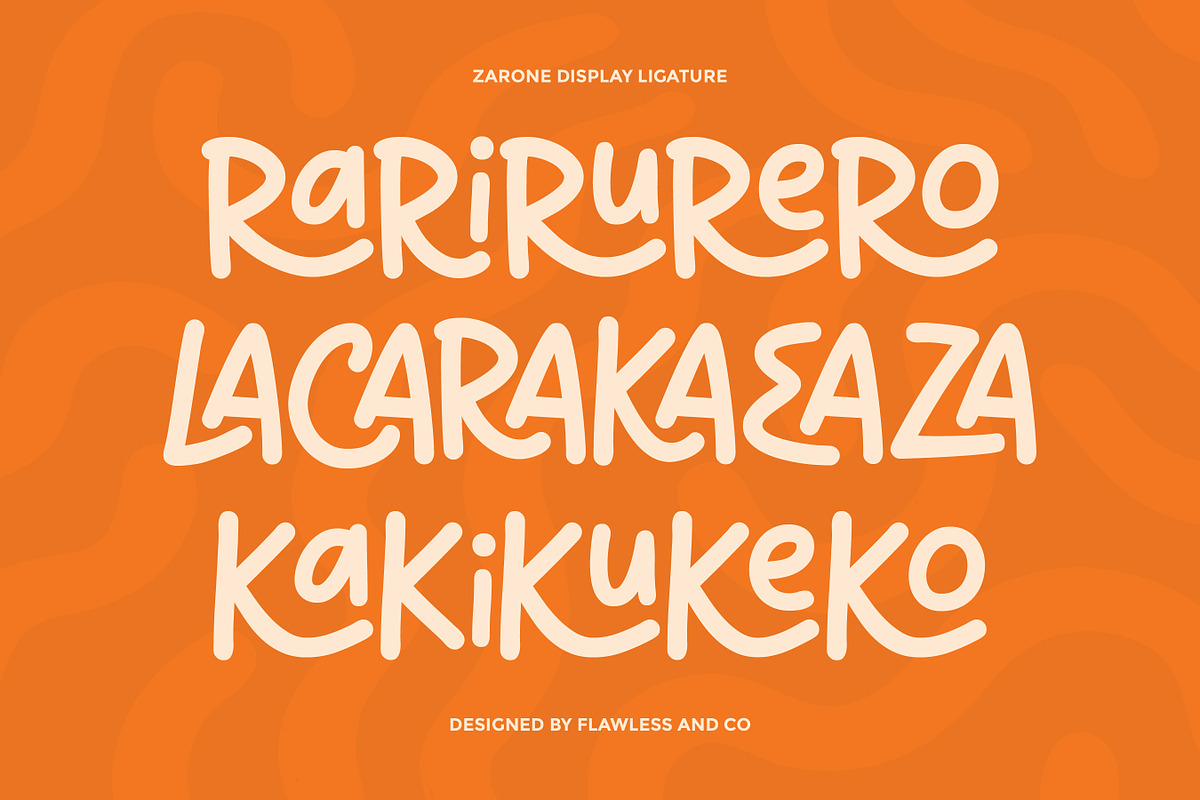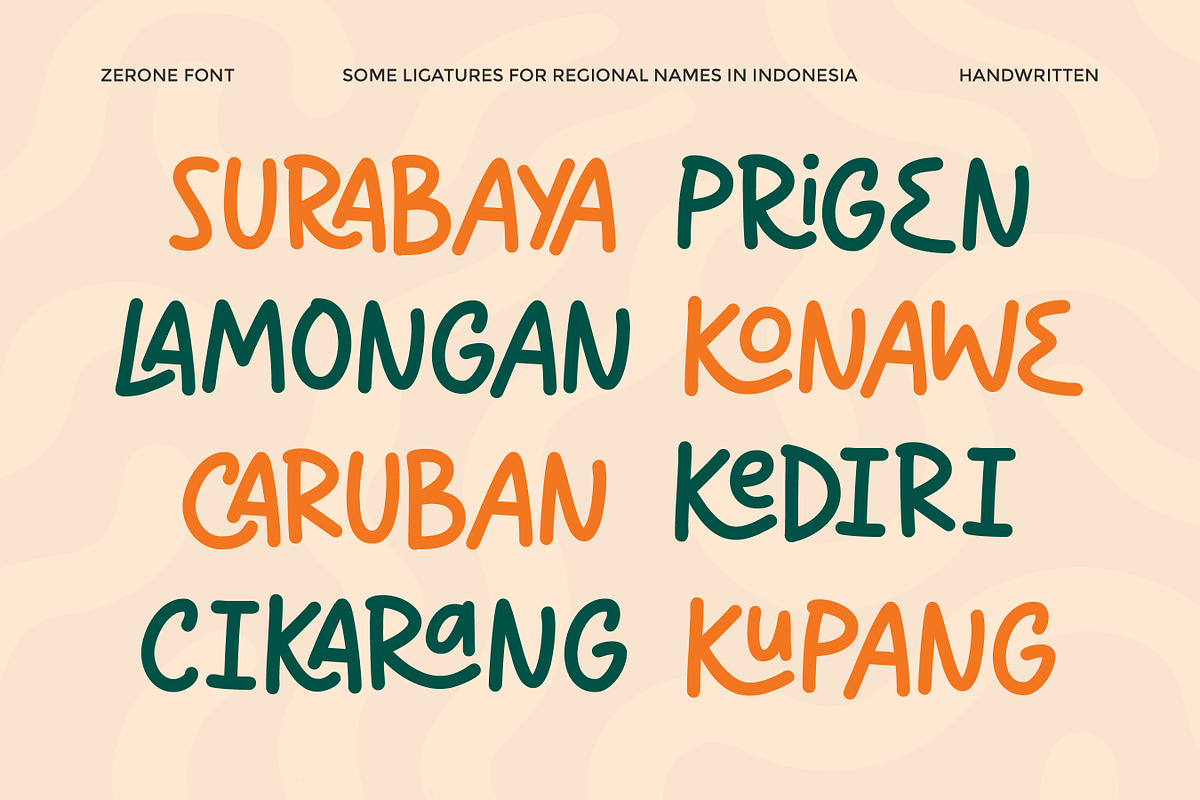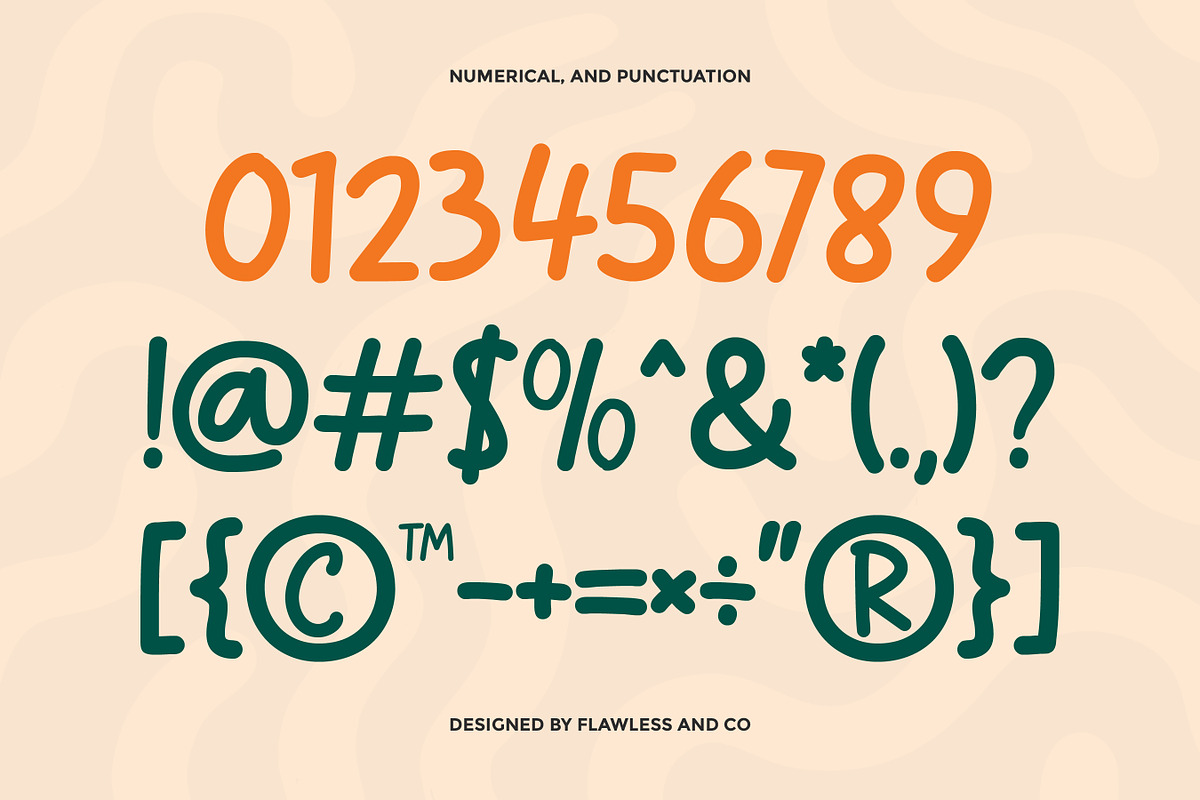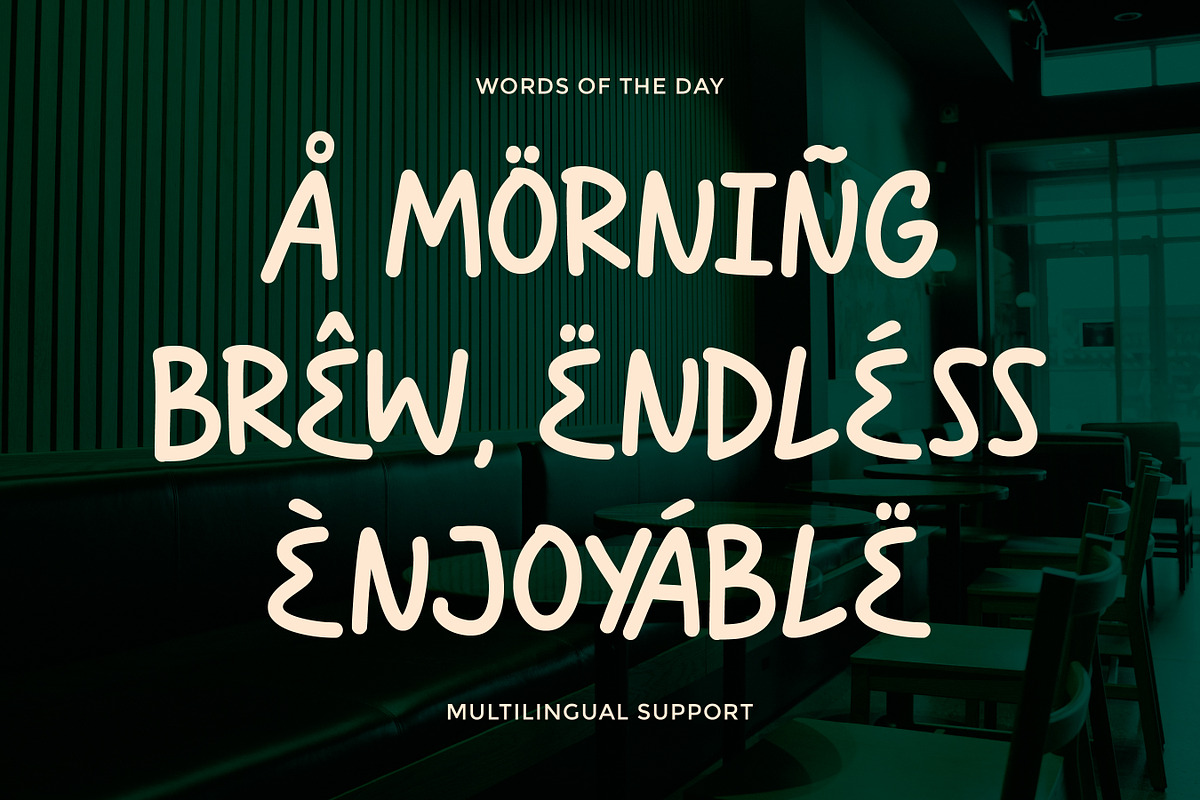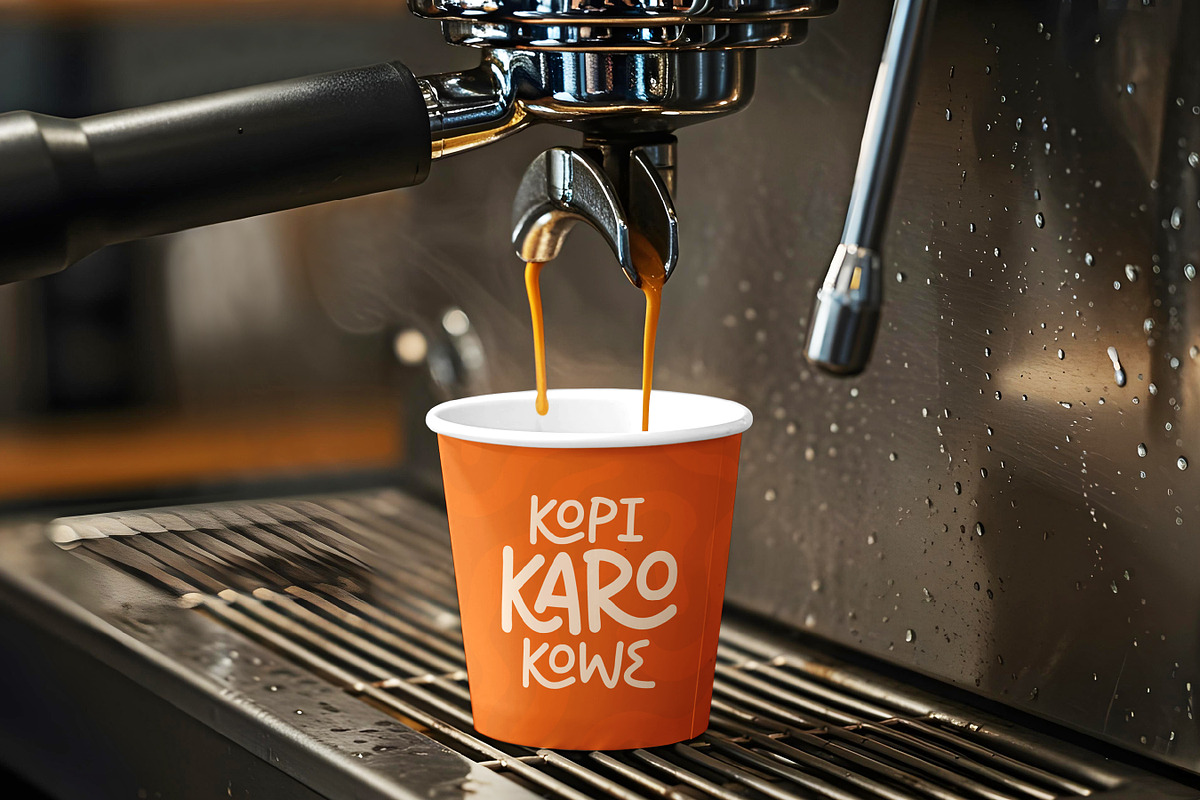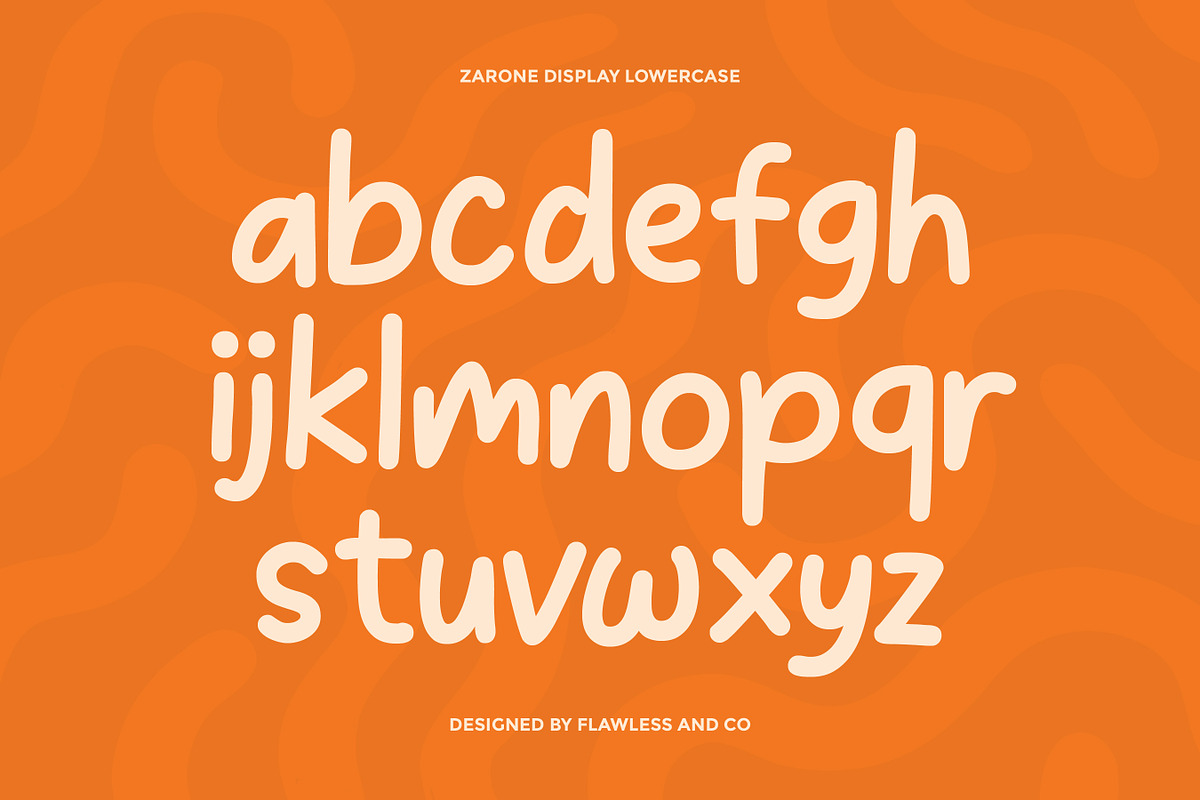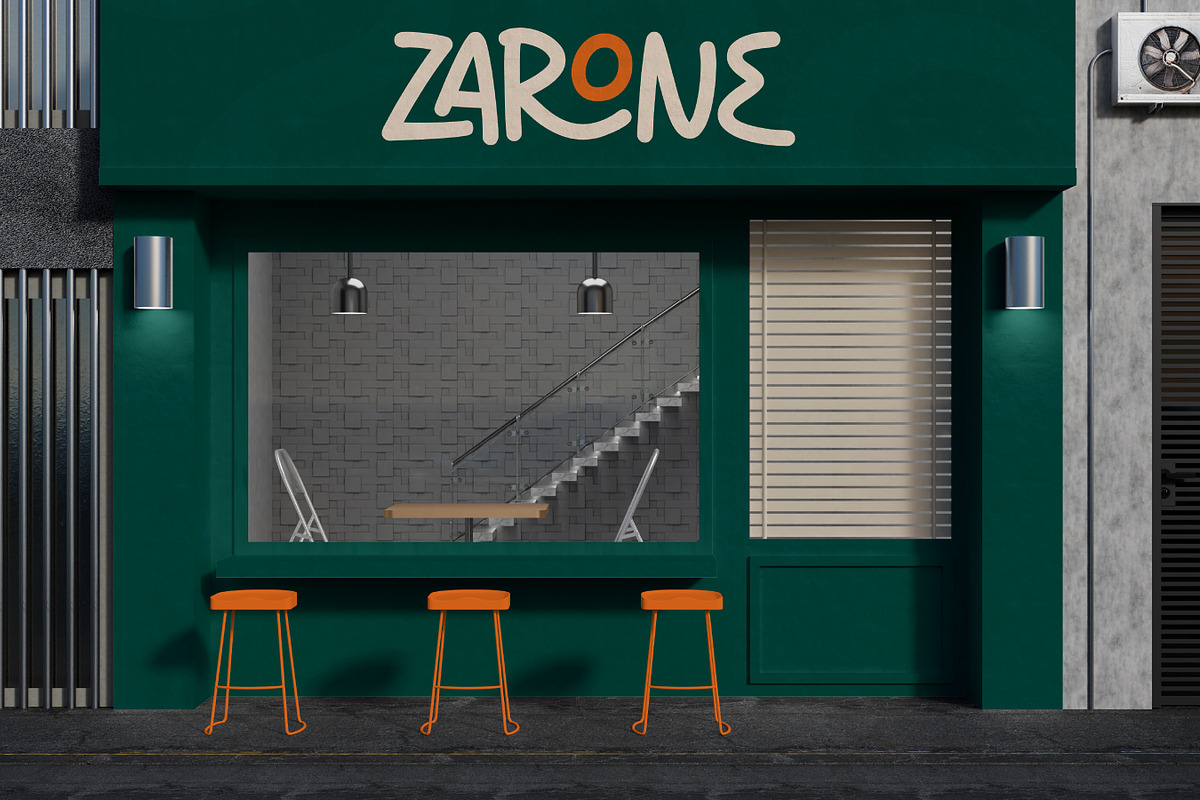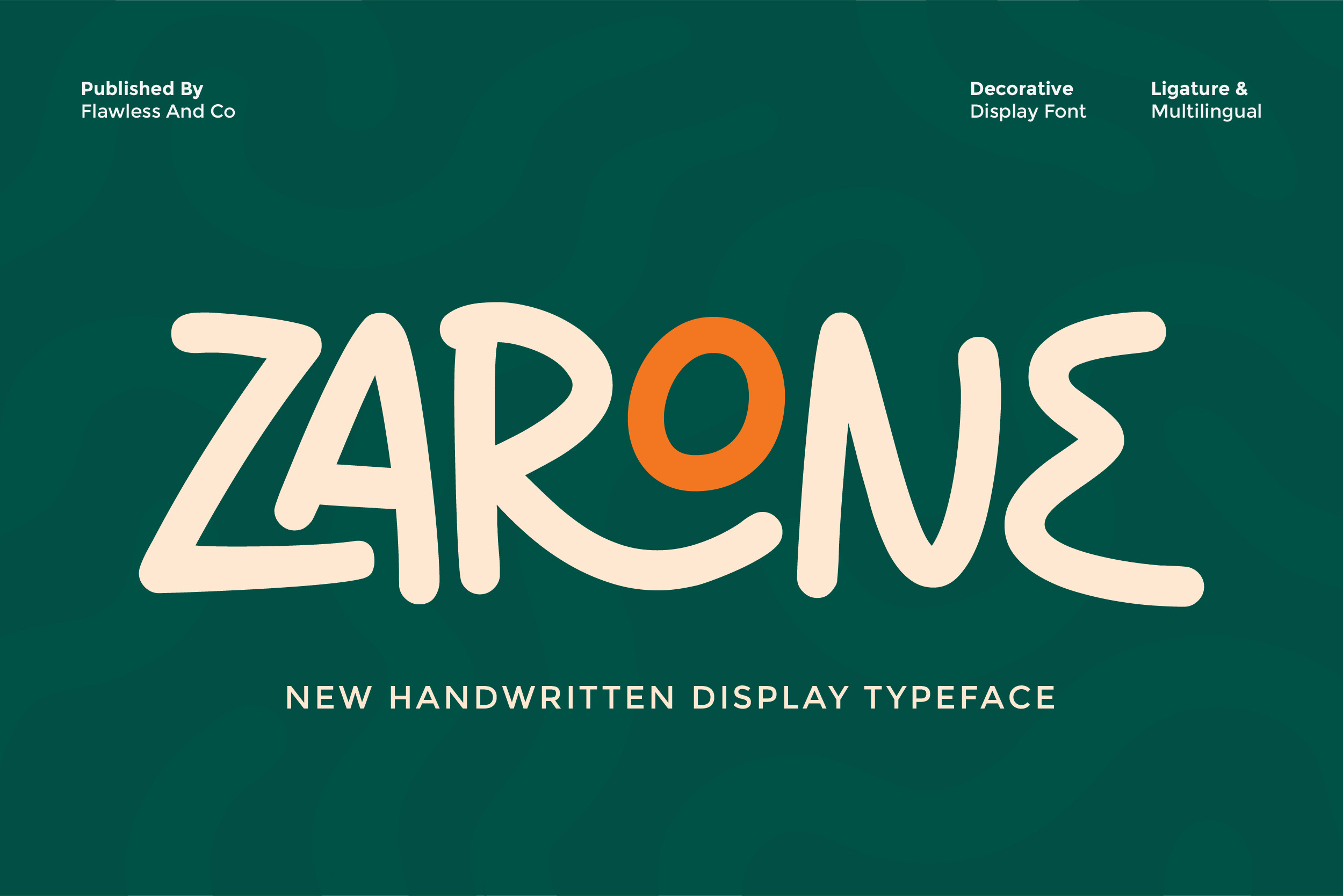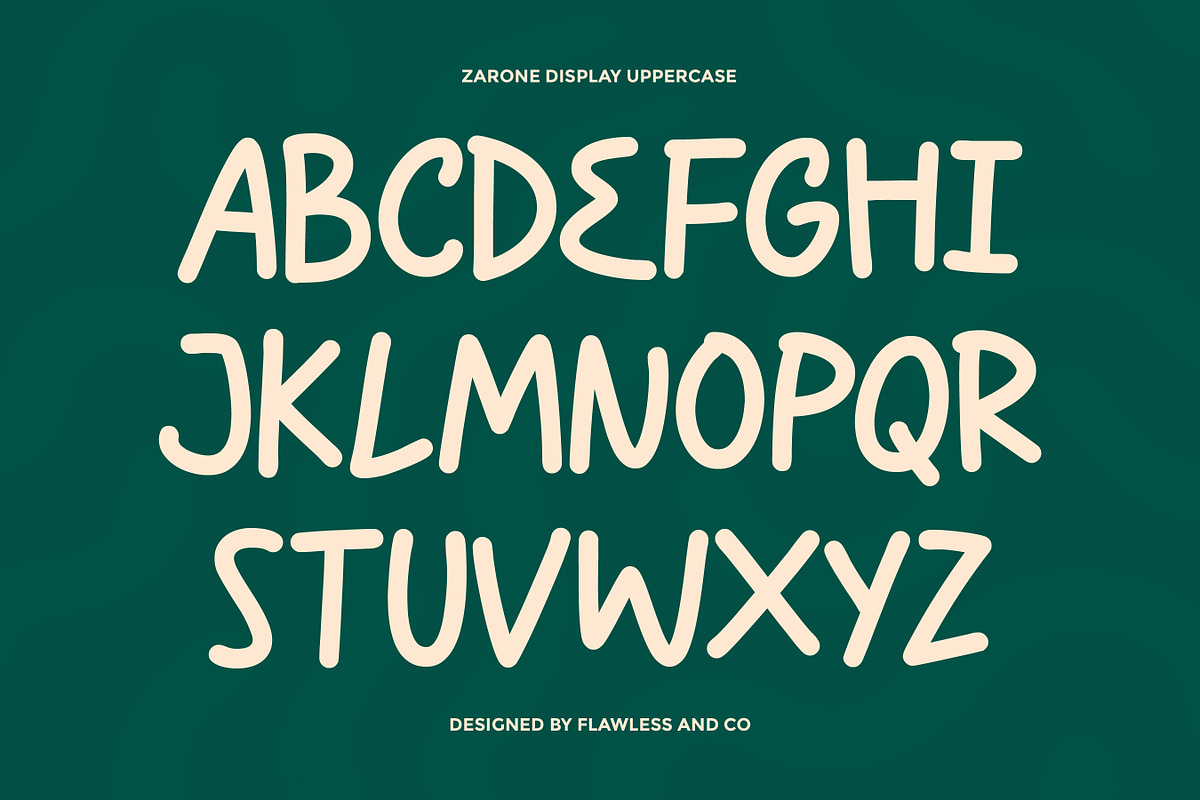
Zarone - Handwritten Display Font
Zarone is a charming handwritten display font designed to bring warmth, personality, and a friendly vibe to your creative projects. This font works beautifully for branding and logos that need a personal touch, while still remaining eye-catching and readable. Zarone also includes decorative details that enhance its handmade character, helping your text stand out effortlessly across both digital and print media.
Who Should Use Zarone?
Zarone is perfect for designers and creatives who want to add a warm, friendly, and handcrafted feel to their work. This font is ideal for:
- Brand and logo designers looking for a casual yet distinctive handwritten style
- Creative entrepreneurs, startups, and small businesses
- Social media designers and content creators
- llustrators and packaging designers
- Anyone who wants their design to feel personal, fun, and approachable
A Must-Have Font for Brand and Logo Creators and Designers
Zarone is a must-have handwritten display font for brand and logo creators who want to bring authenticity and personality into their designs. Its natural strokes and playful letterforms create a friendly, human touch that helps brands feel more relatable and memorable.
Why Choose Zarone for Brand and Logo Projects?
Zarone offers a natural handwritten style that brings warmth and personality to brand and logo designs. Its organic letterforms feel friendly and expressive, making logos look more personal and authentic. Zarone is easy to read while still unique, helping brands stand out with a casual, creative, and approachable identity across both digital and print media.
Suitable for:
- Branding and logo design
- Creative and handmade brands
- Packaging and product labels
- Social media posts and content
- Posters and flyers
- Lifestyle, café, and food brands
- Personal projects and creative merchandise